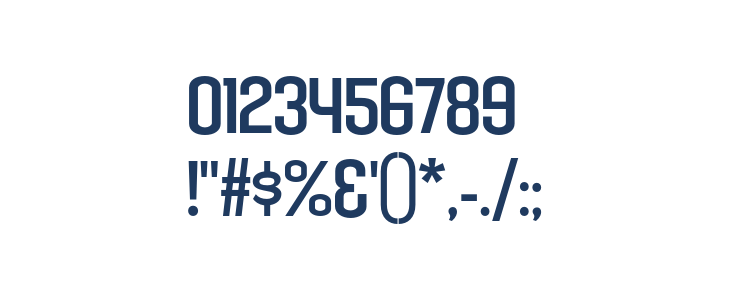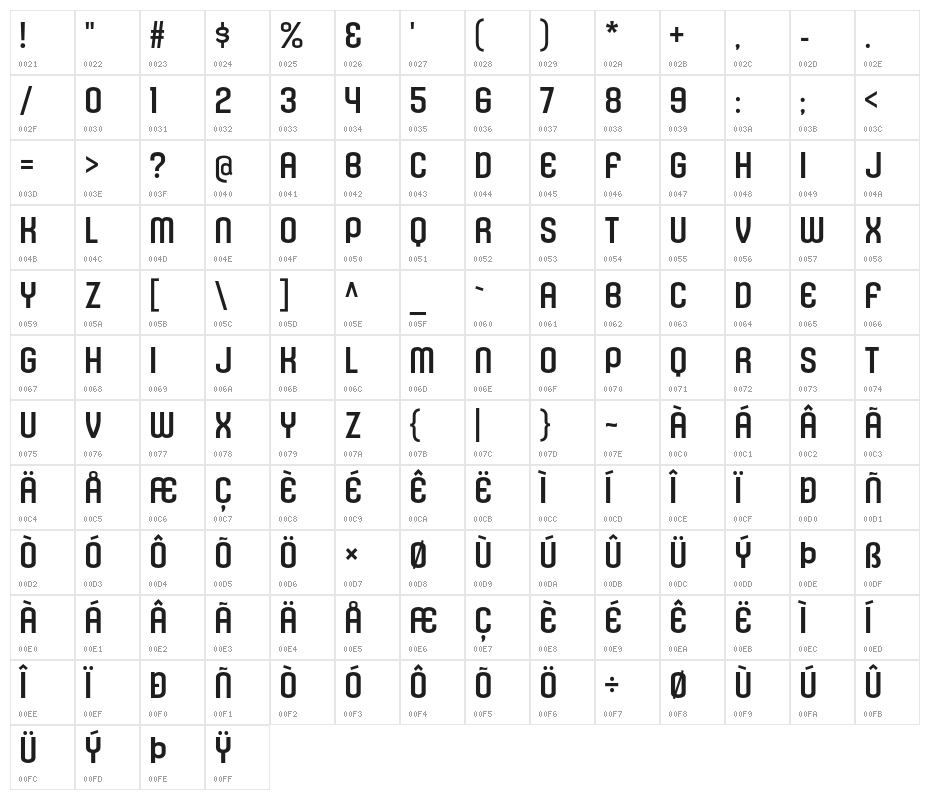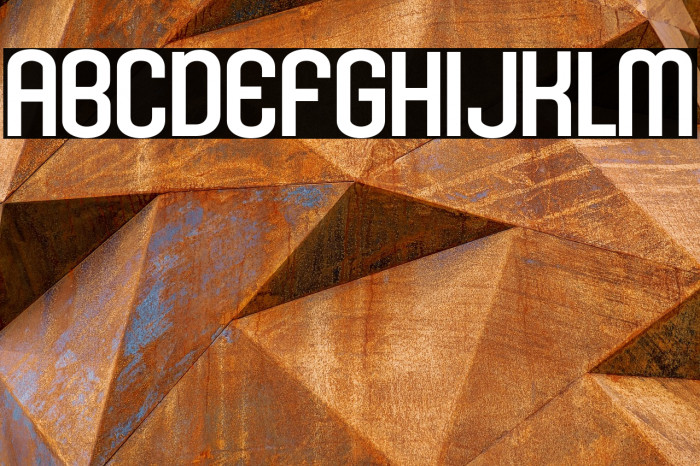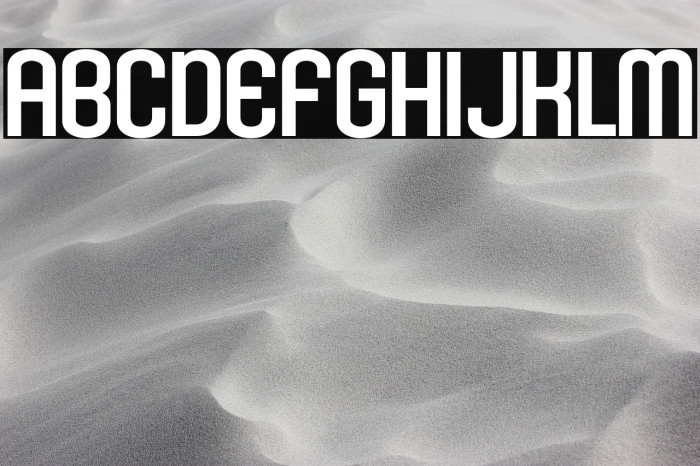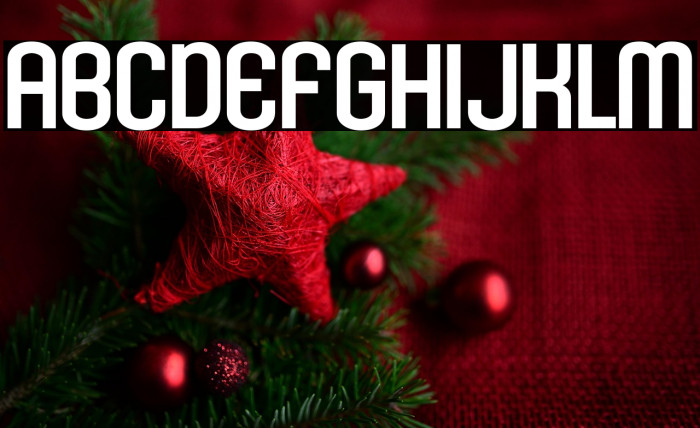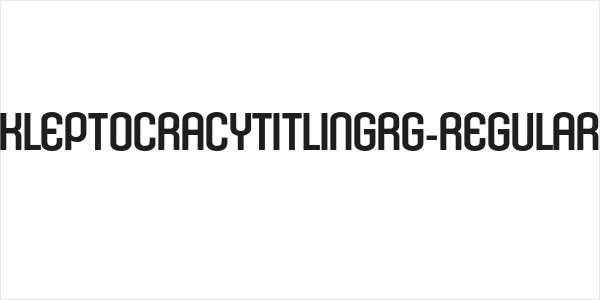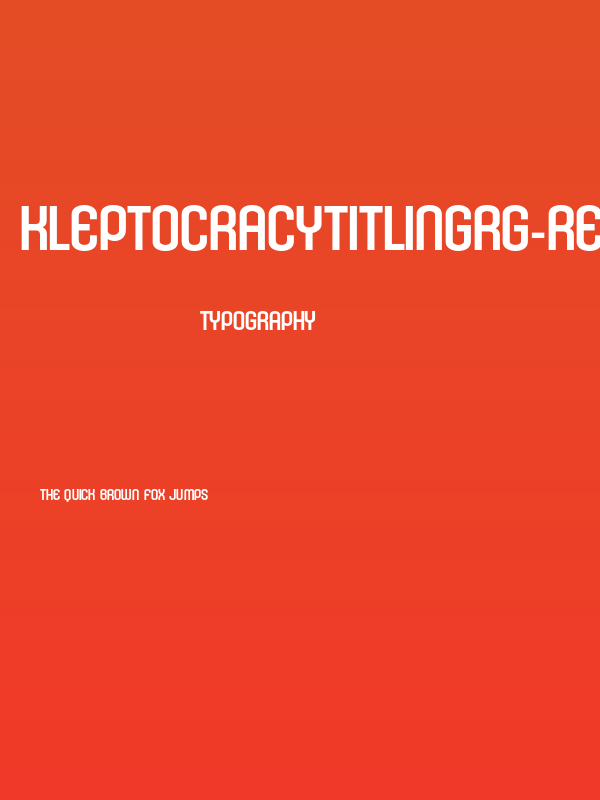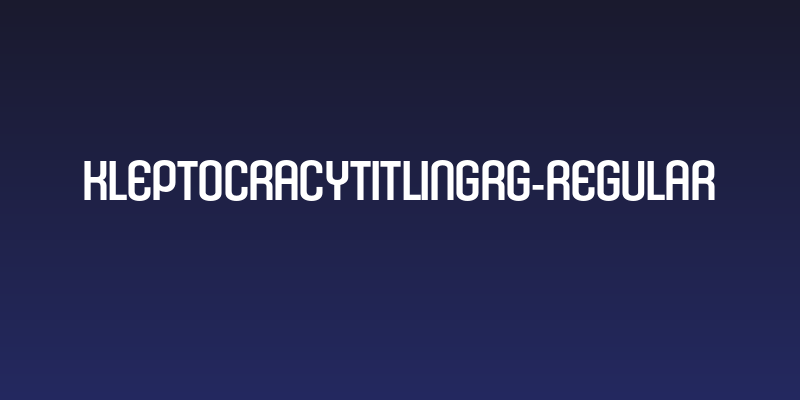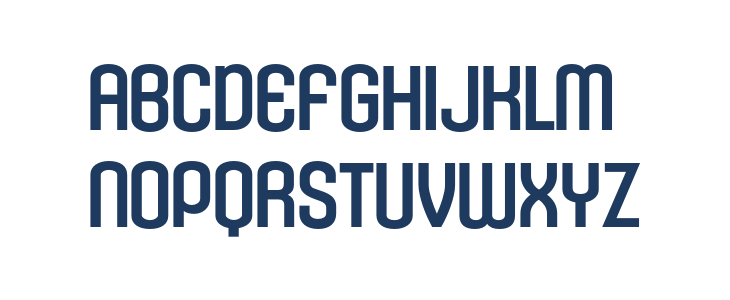
KleptocracyTitlingRg-Regular Font
KleptocracyTitlingRg-Regular Description
This font features a bold and modern design with a geometric structure. The characters are tall and narrow, giving it a condensed appearance. The strokes are consistent in thickness, providing a uniform look across all characters. The uppercase and lowercase letters maintain a similar height, enhancing its compact style. The numerals are clear and distinct, matching the overall aesthetic. Special characters are included, maintaining the same bold and structured design. This font is highly legible and suitable for various design applications.
Proposed ProjectsIdeal for headlines, posters, branding, and logo design where a strong and modern impression is desired.